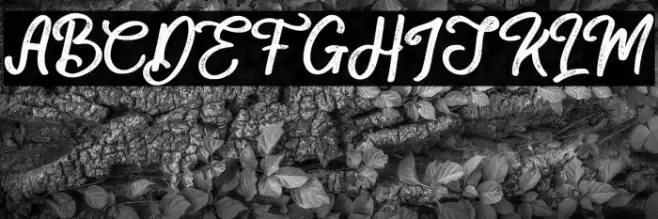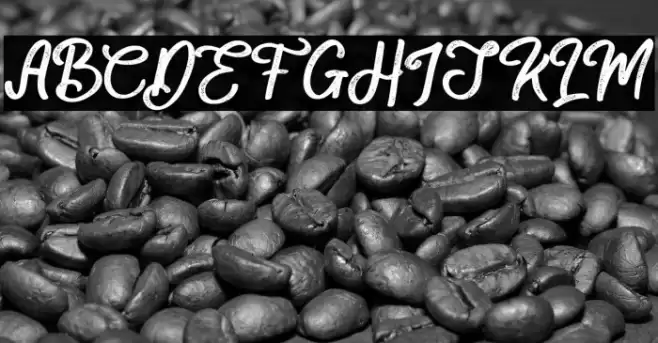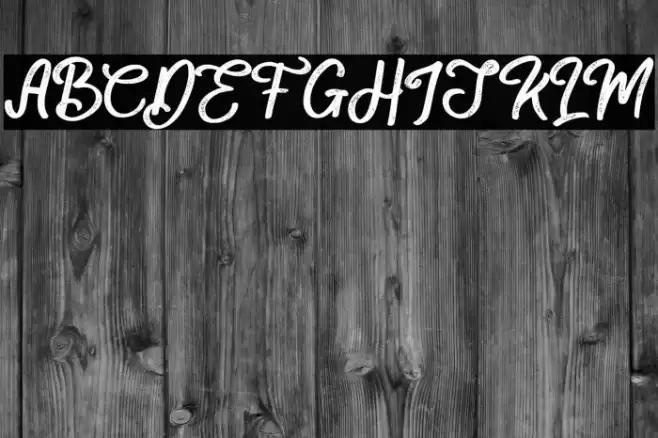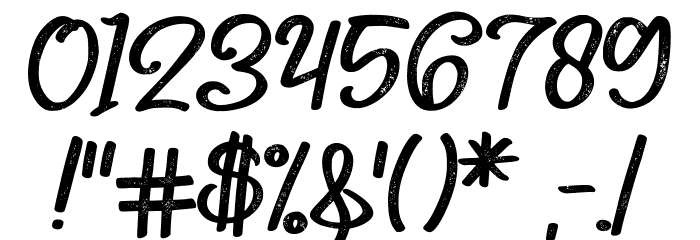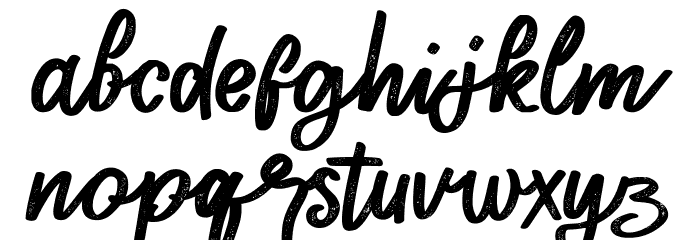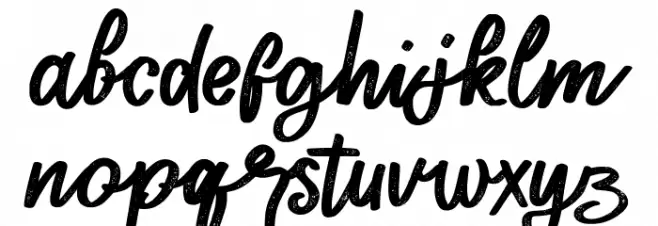
Mackline Font
Mackline Description
This font features a bold, cursive style with a playful and energetic flair. The uppercase letters are elegantly connected, while the lowercase letters maintain a consistent flow, enhancing readability. The numbers and special characters are designed with the same dynamic strokes, adding a cohesive look across all characters. The texture of the font gives it a slightly distressed appearance, adding a touch of vintage charm. This font is perfect for projects that require a personal, handwritten touch, such as invitations, greeting cards, or branding materials.
A bold, cursive font with a playful, vintage charm from Uncategorized fonts.
- Proposed Projects: Ideal for invitations, greeting cards, branding, and personal projects.
- Use Case: Logos, Headlines, Invitations